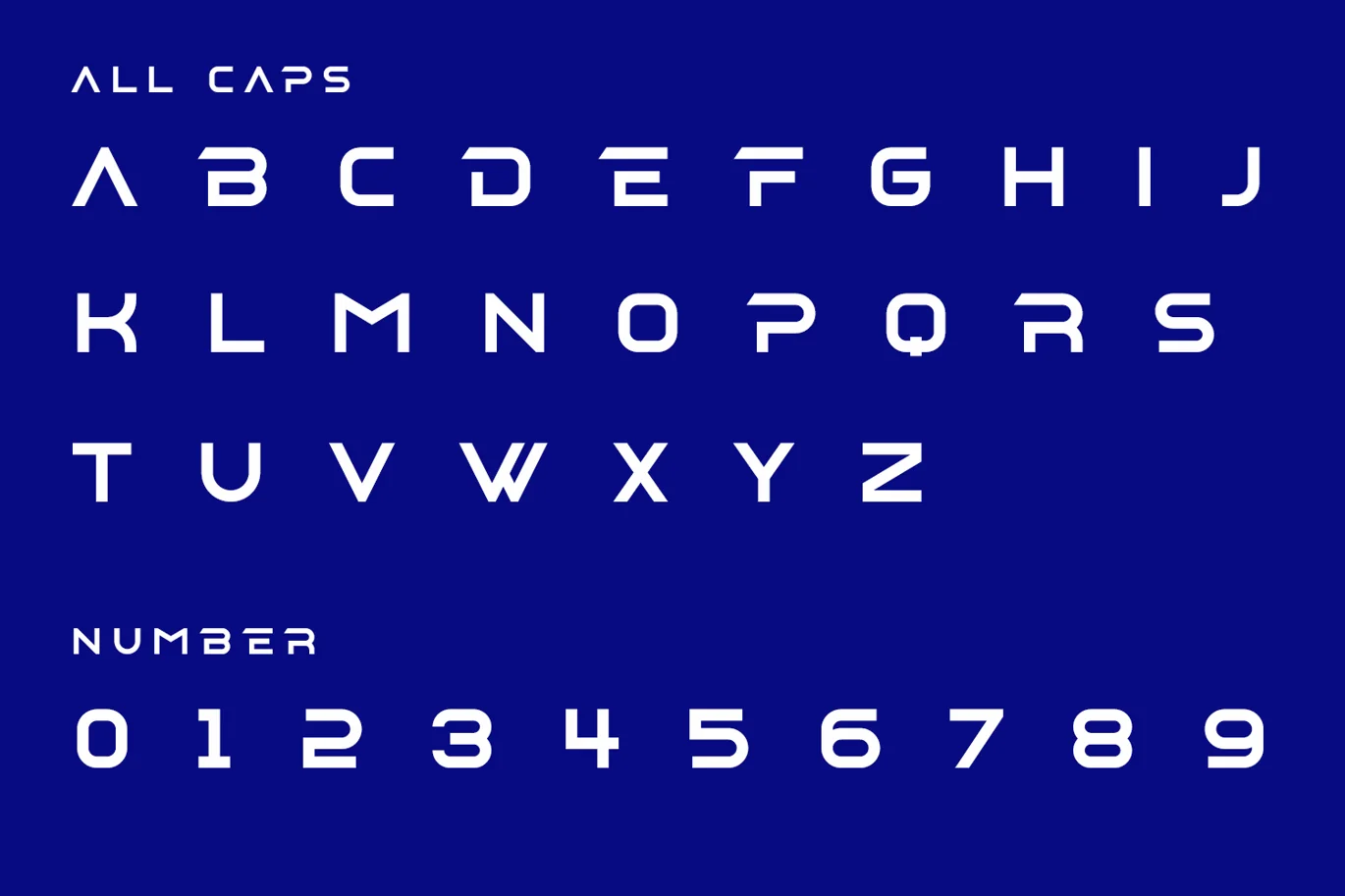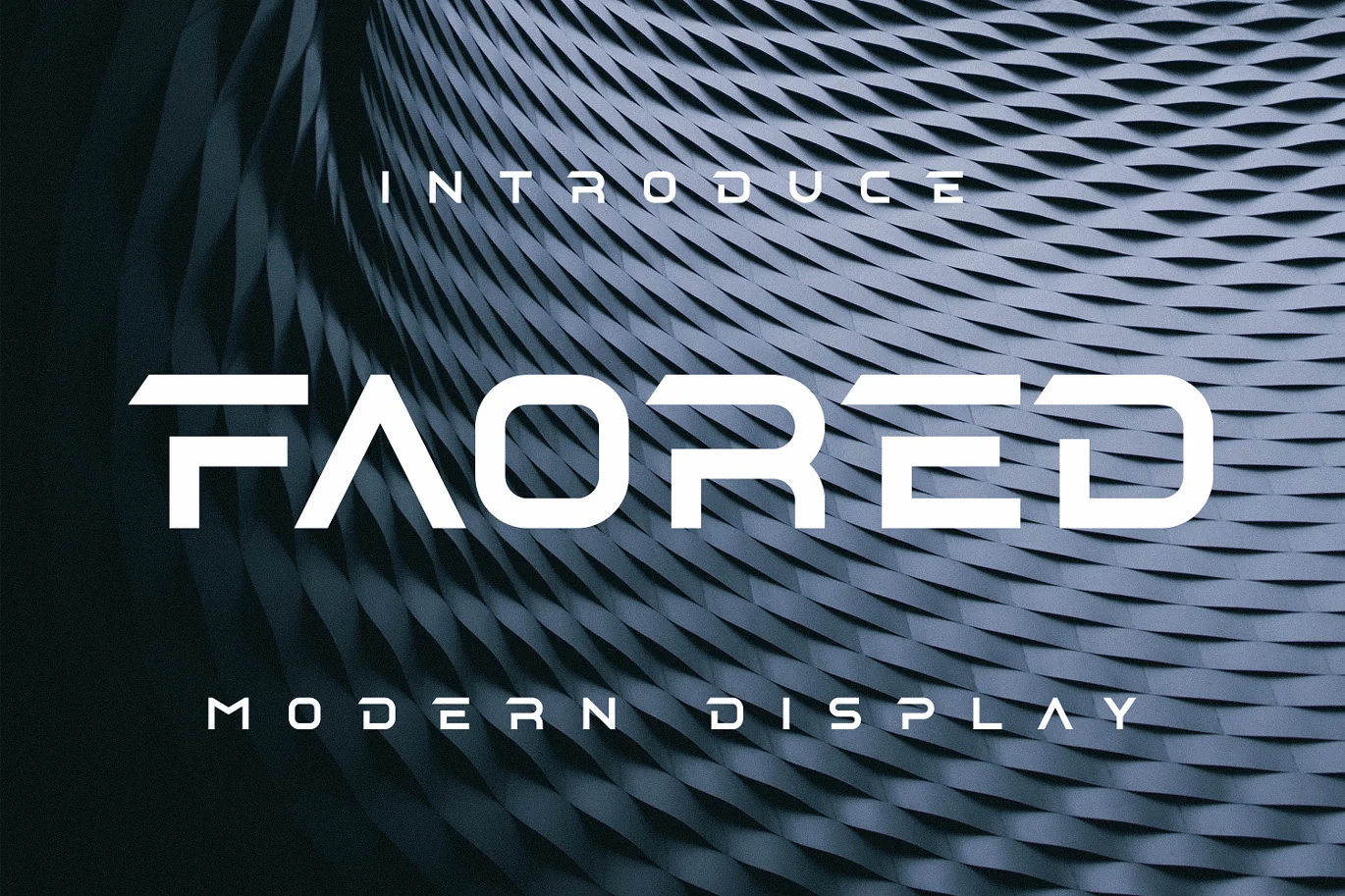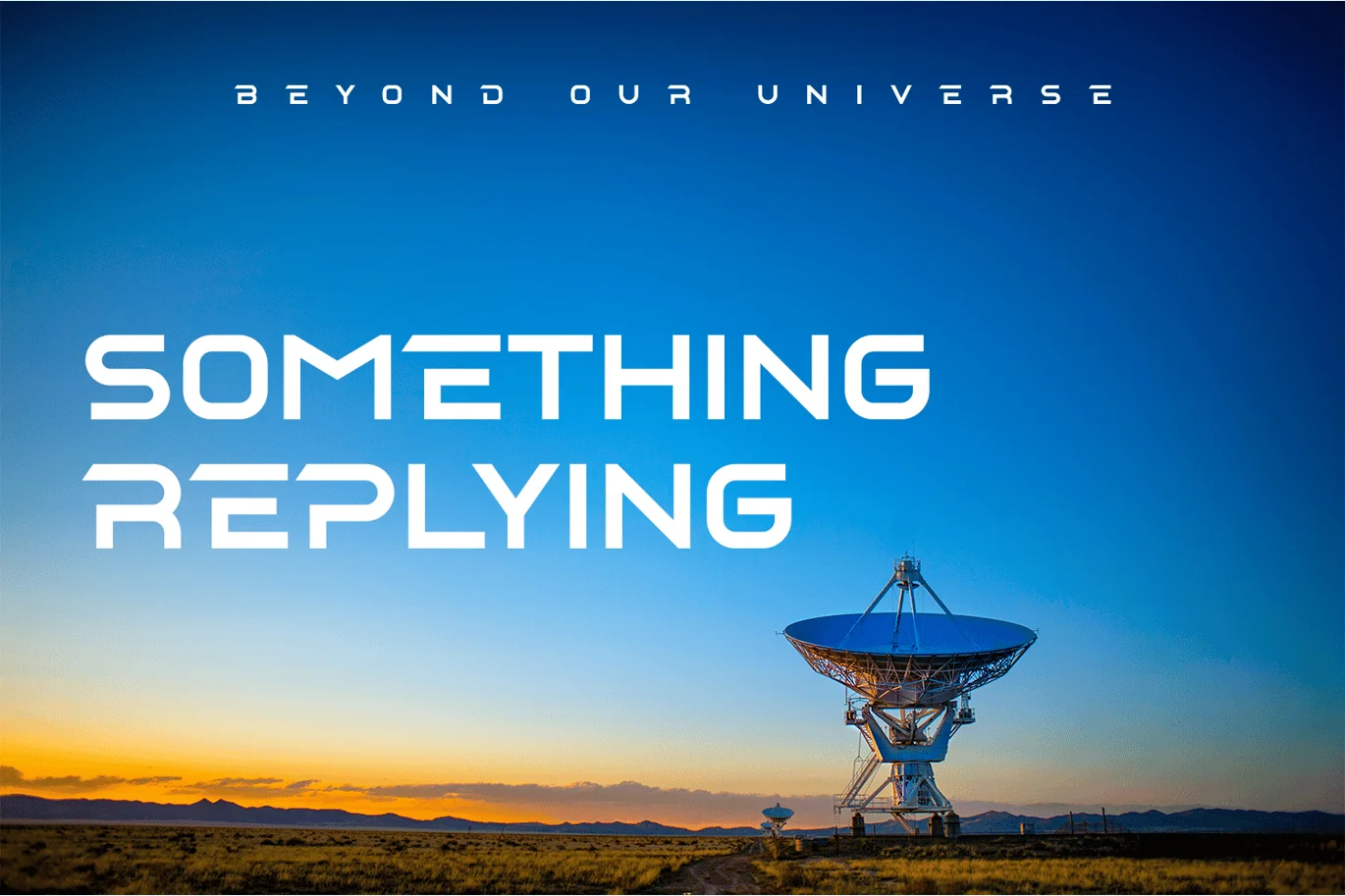
Feored Font
Feored Font is modern font with a sans serif style.
Perfectly suited on print/screen; it can be used freely for logotypes,
e-books and mobile applications and is especially food for headlines, banners, posters,
web-sites, magazines, etc.
*Uppercase & Lowercase
*Number
*Punctuation